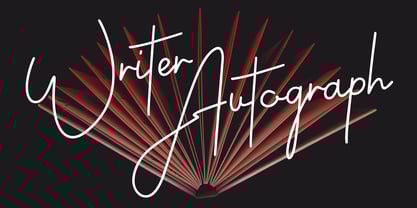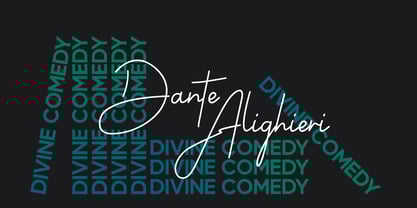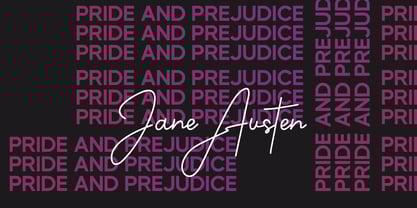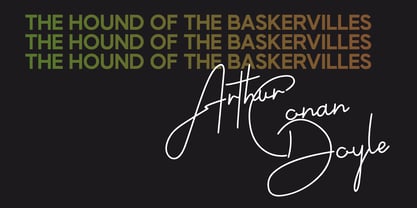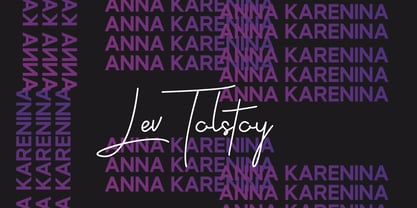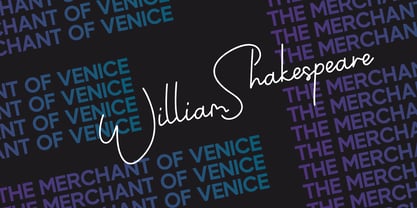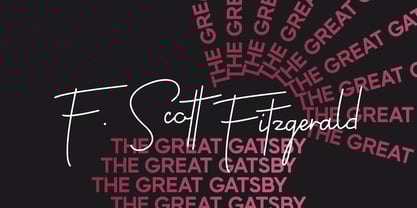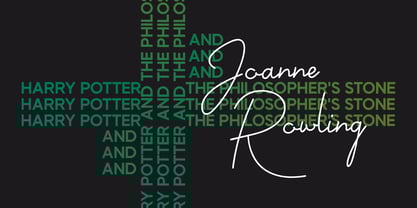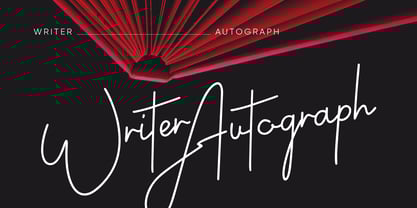
Writer Autograph
by TirionType
The Writer Autograph Font Family was designed by Stanislav Hatznik and published by TirionType. Writer Autograph contains 2 styles and family package options. More about this family
Writer Autograph is a bold, expressive calligraphy font inspired by the confident signatures of writers and legendary figures. The family includes uppercase and lowercase letters, a wide range of punctuation, symbols, numerals, and extensive multilingual support. It comes in two weights—Light and Regular—with professional kerning built right in for flawless spacing. Perfect for creating striking, stylish lettering, this font adds instant personality to logos, product packaging, merchandise, branding, invitations, and more. With Writer Autograph, your text is guaranteed to stand out with unmistakable character and flair.